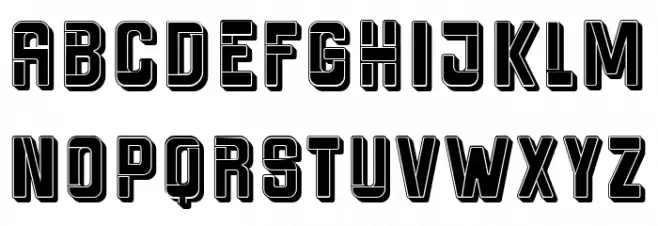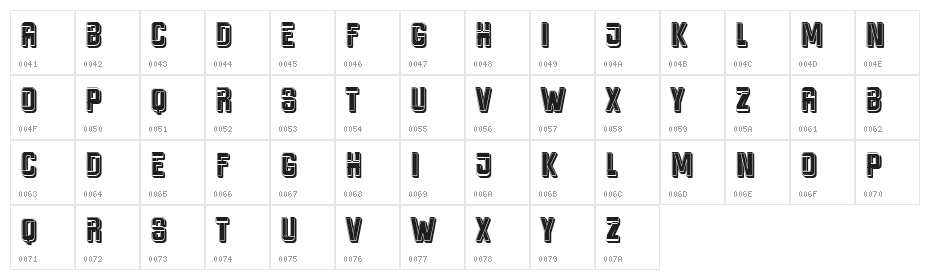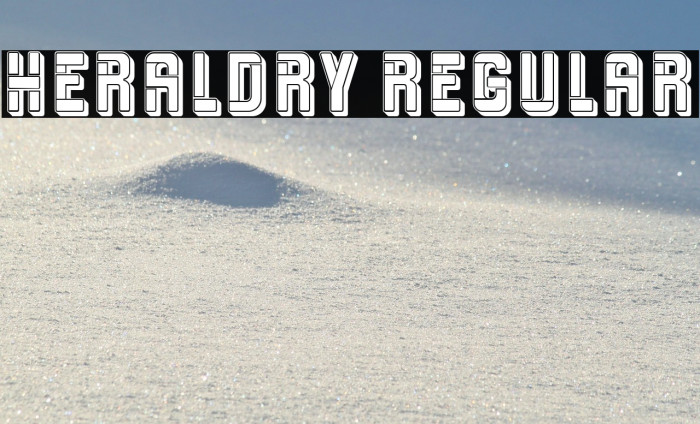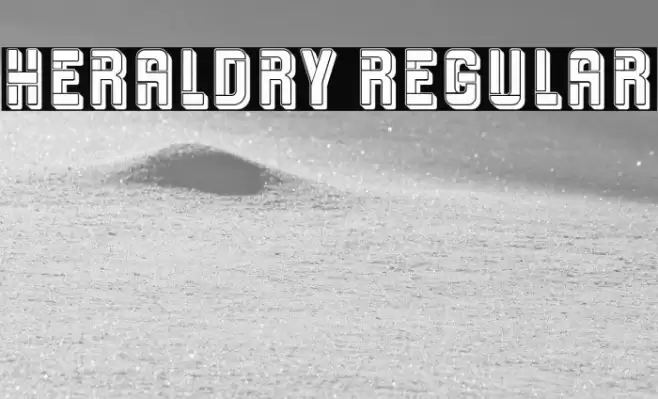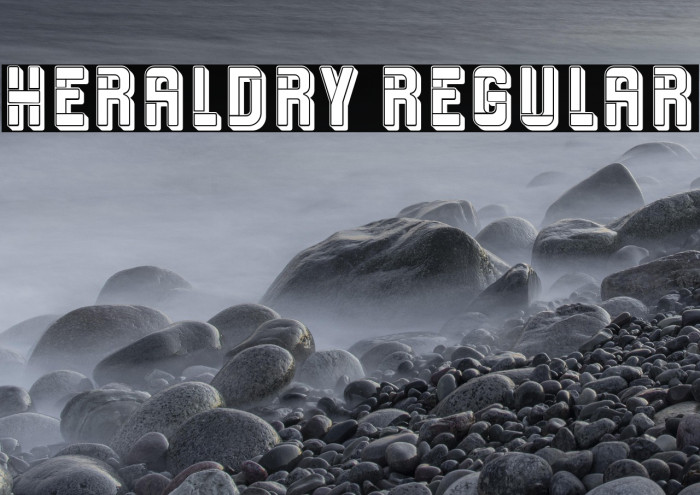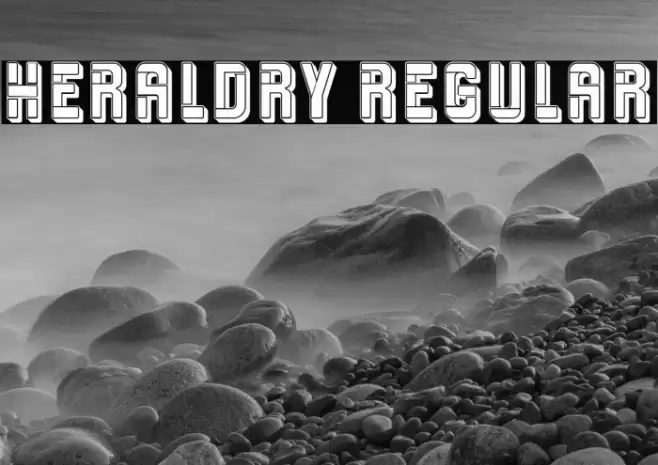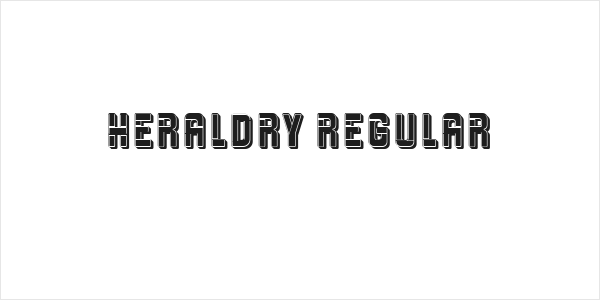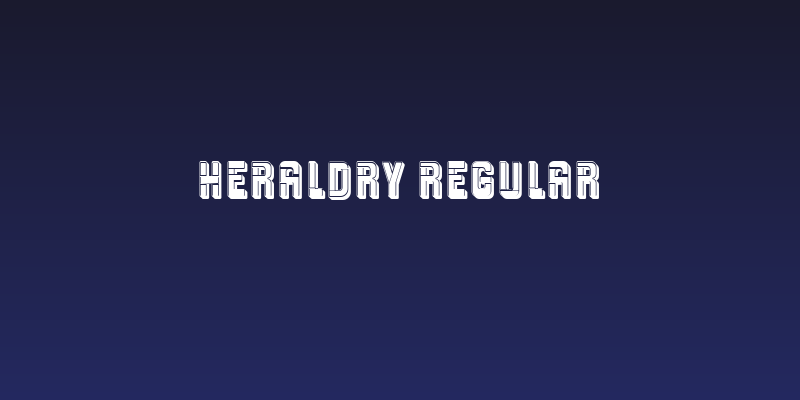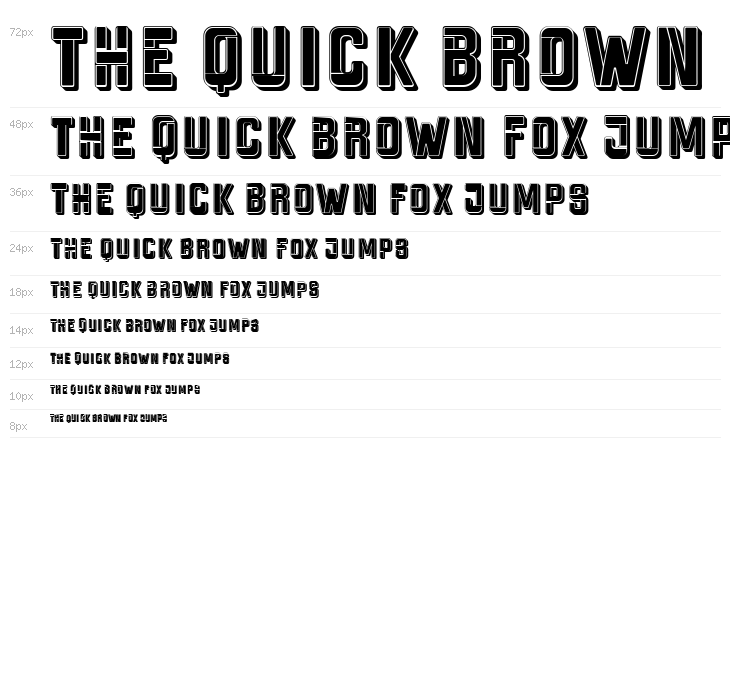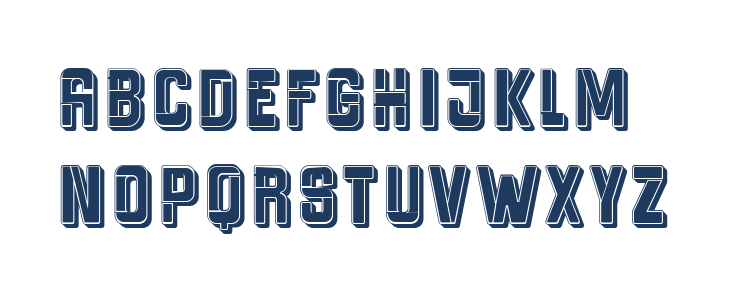
Heraldry Regular Font
Heraldry Regular Description
This font features a bold, geometric design with a strong, three-dimensional effect. The characters are outlined with a thick black border, creating a striking contrast against the inner white space. Each letter is crafted with precision, showcasing a modern, industrial aesthetic. The uppercase letters are uniform in height, emphasizing a sense of balance and symmetry. The font's style is reminiscent of architectural blueprints or technical drawings, making it ideal for projects that require a bold and impactful visual statement. Its unique design elements make it stand out, while maintaining readability and clarity.
| Proposed Projects | Ideal for headlines, posters, branding, and any design requiring a bold visual impact. |